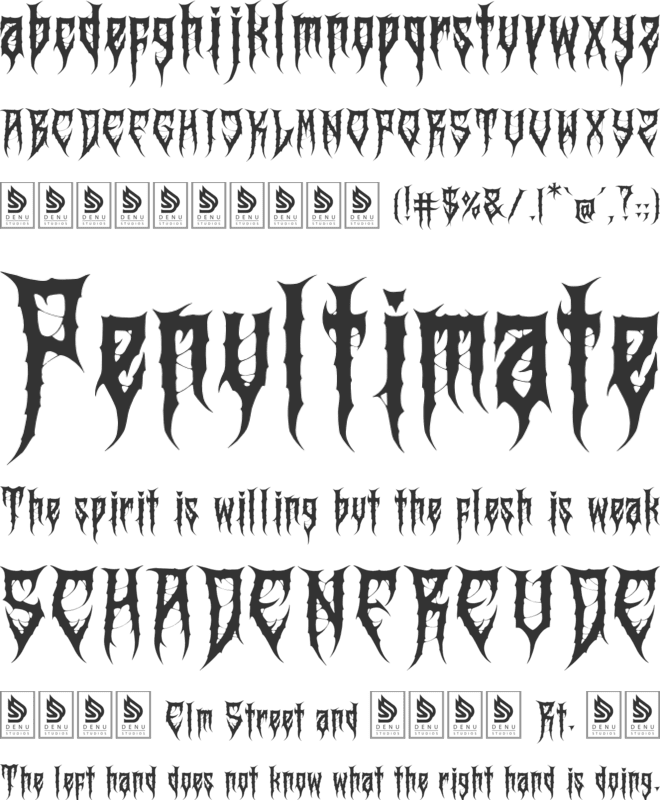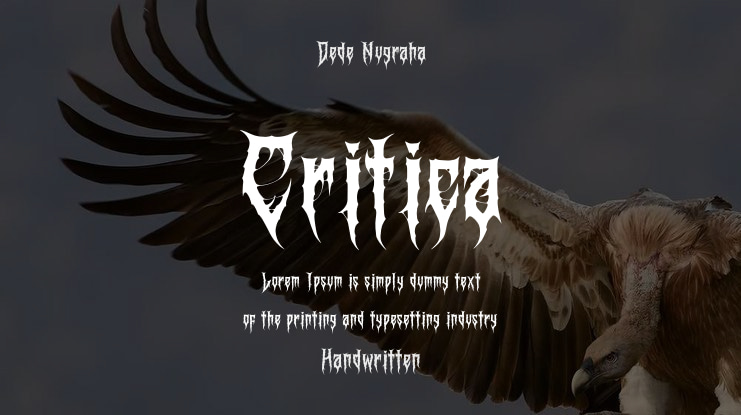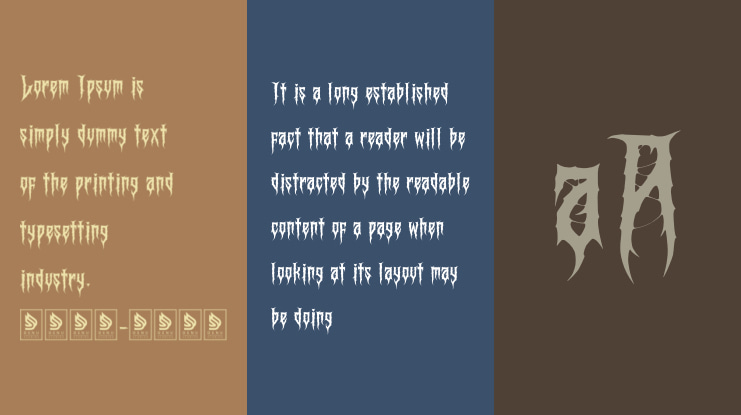
Dede Nugraha
Critica | Black Metal Font product packaging, mugs, quotes, posters, shopping bags, t-shirts, book covers, name card, invitation cards, greeting cards, label, photography, watermark, special events, and all your other lovely projects that need a Black Metal Font taste.